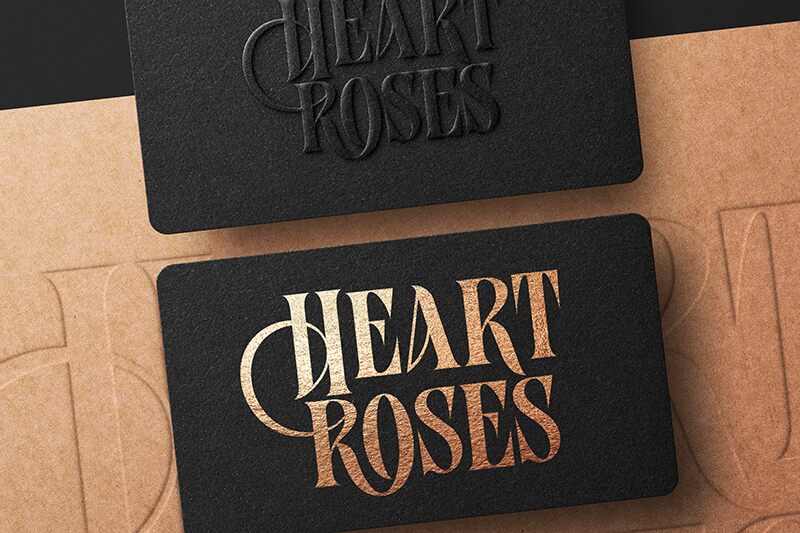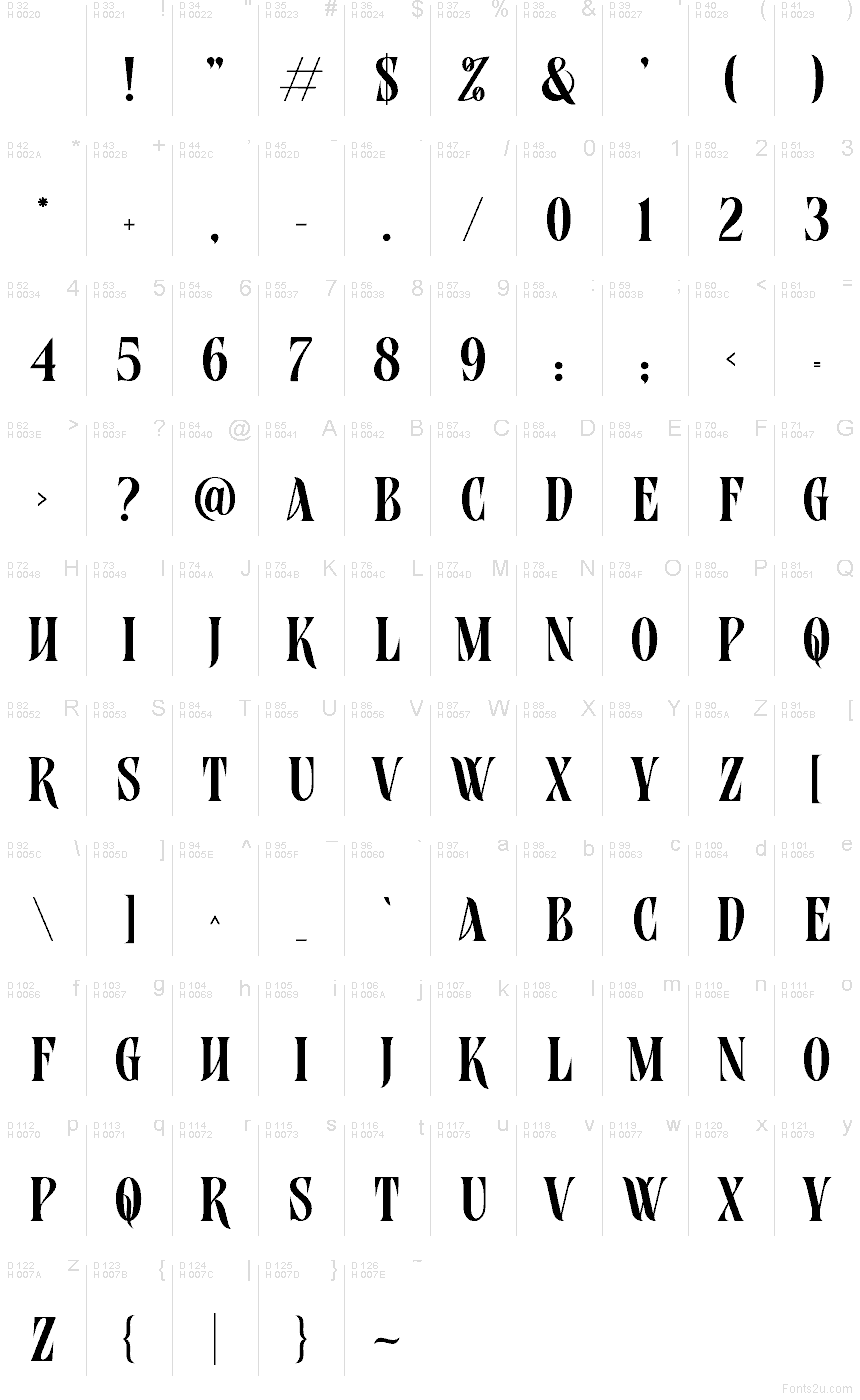
Aslock
Aslock font by Riyadh Rahman is a free serif typeface with a sleek, theatrical presence that grabs attention instantly. Its tall, compressed shapes, razor-sharp diagonals, and swooping curves feel like ink carved with a knife—elegant but slightly dangerous. The letters pack tightly, creating a bold, continuous rhythm that reads like a logotype straight out of a luxury fashion house or dark, moody poster.
Using Aslock, this free font shines on projects where you want drama without clutter: magazine covers, perfume packaging, nightlife flyers, book titles, logos, and striking social media graphics. It works beautifully when set large, letting those sculpted curves and angular cuts really breathe. Pair Aslock with a clean, neutral sans serif for body text to keep layouts readable while the headlines steal the spotlight.